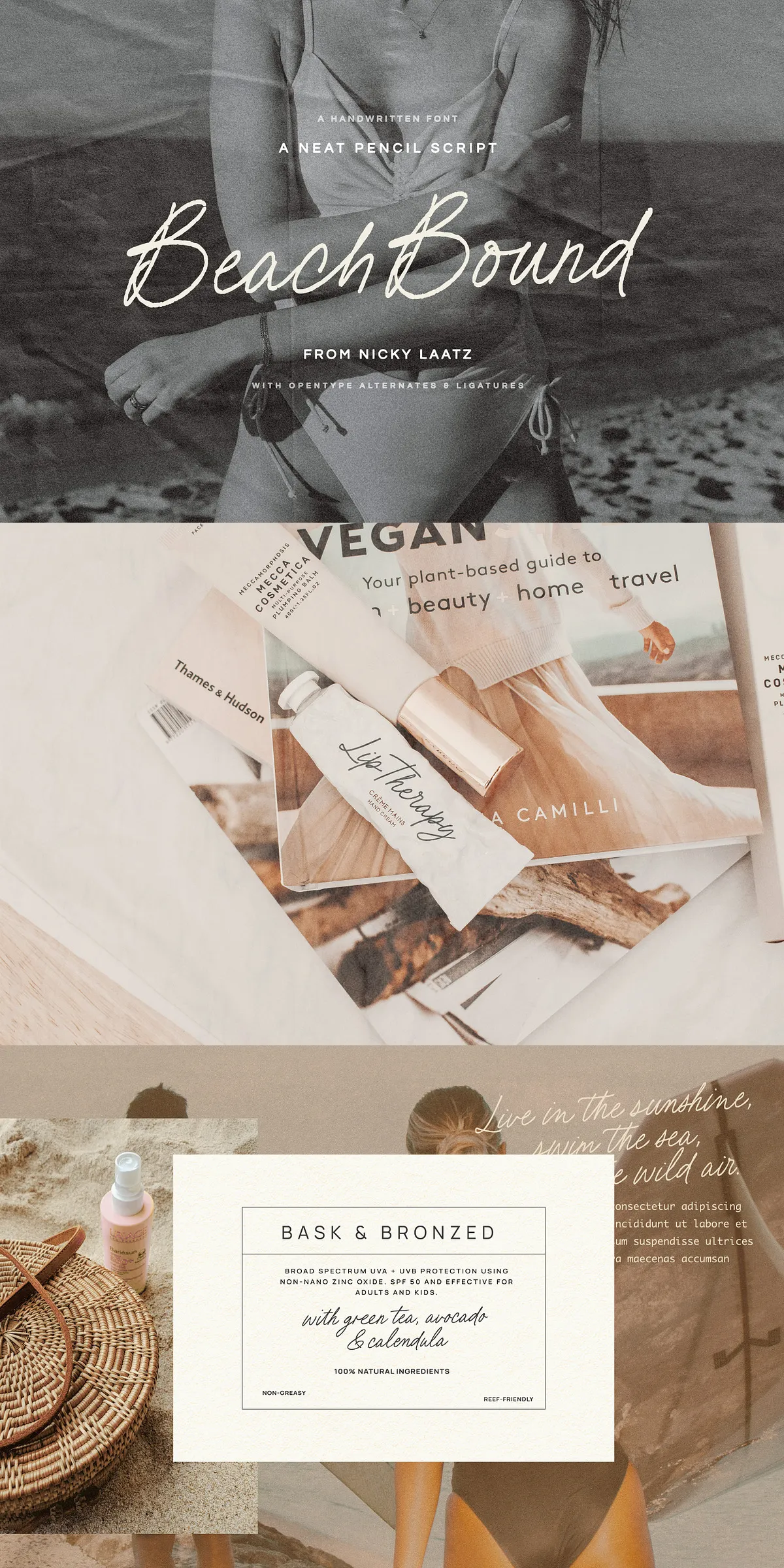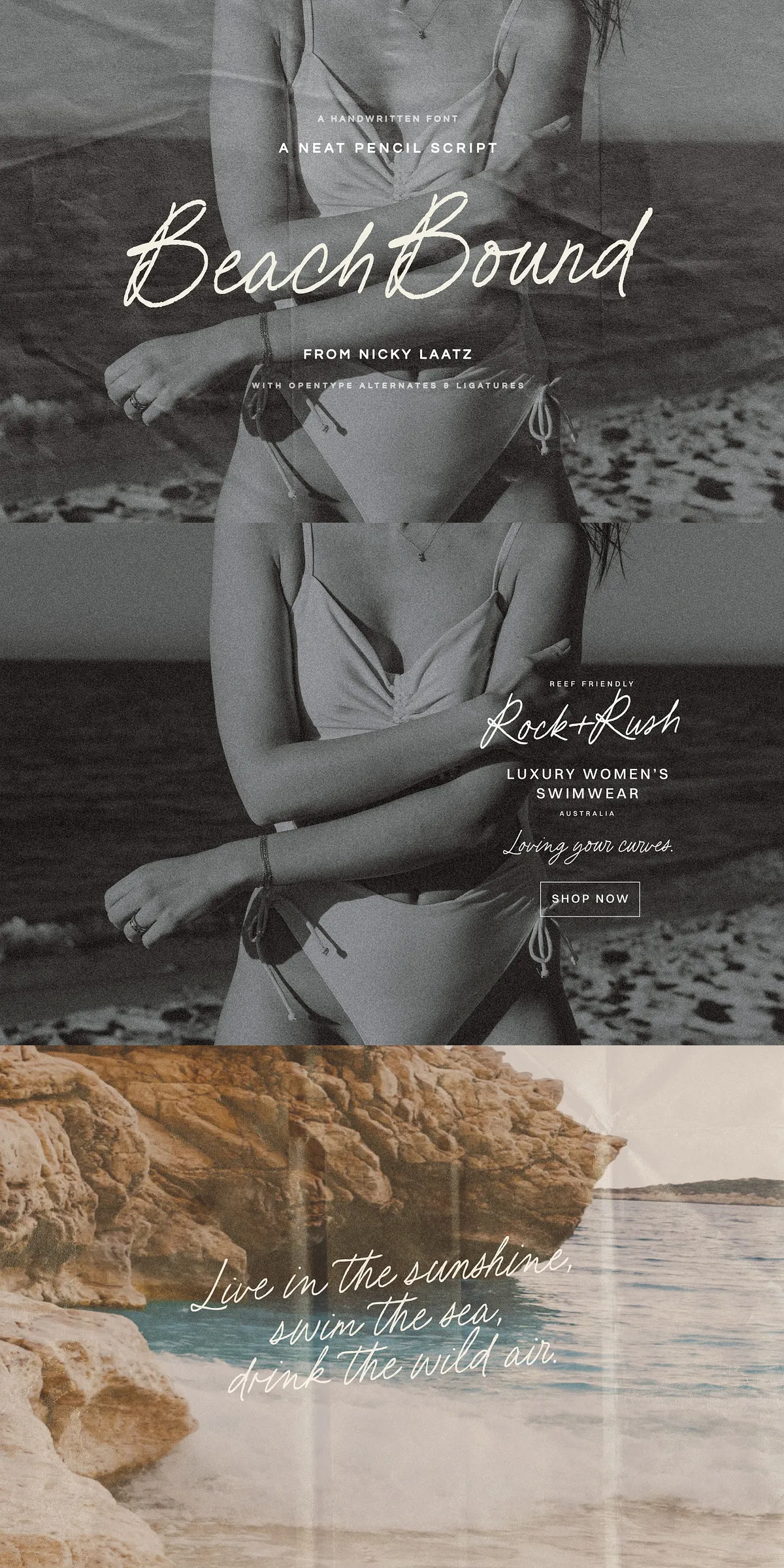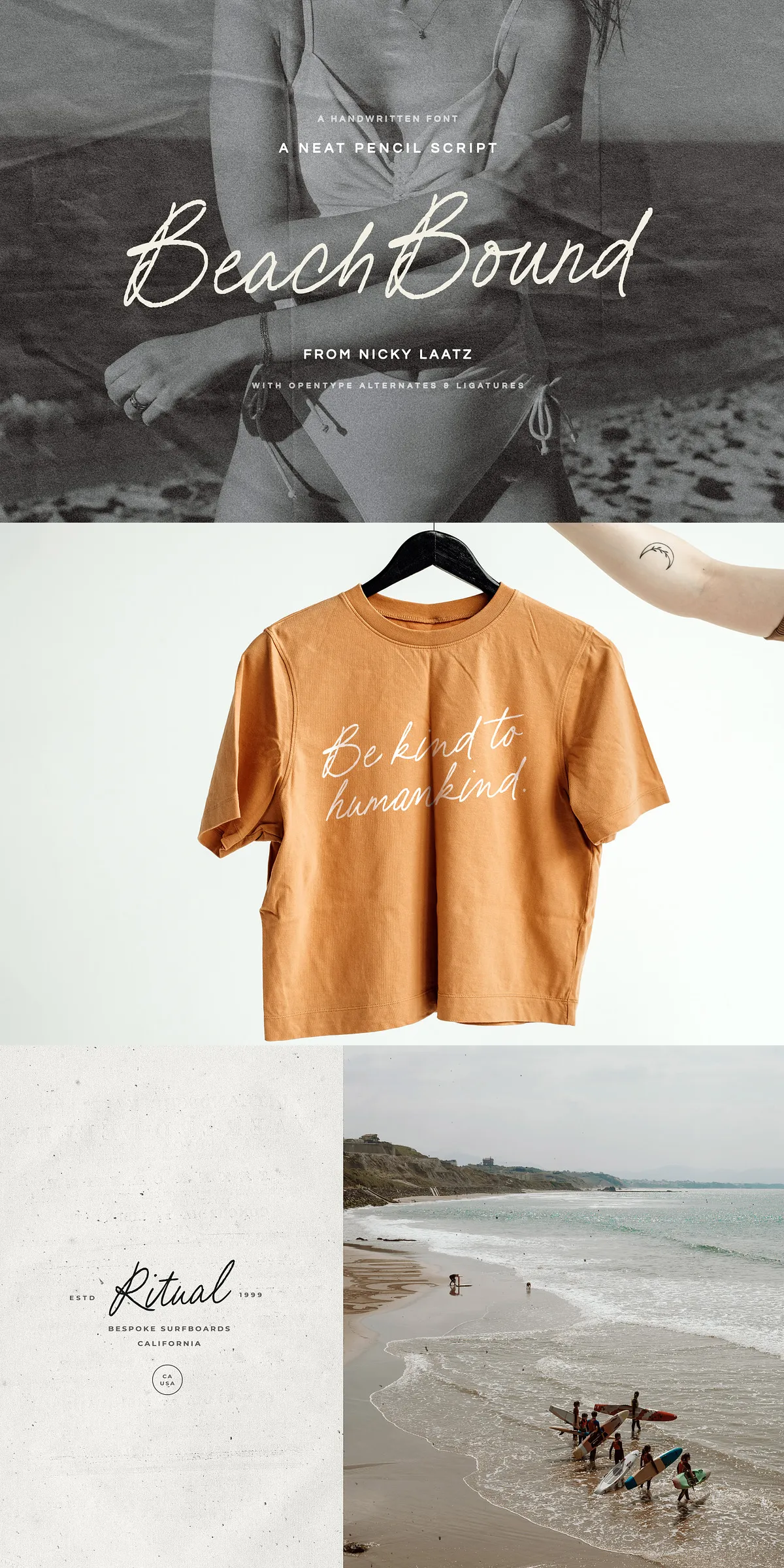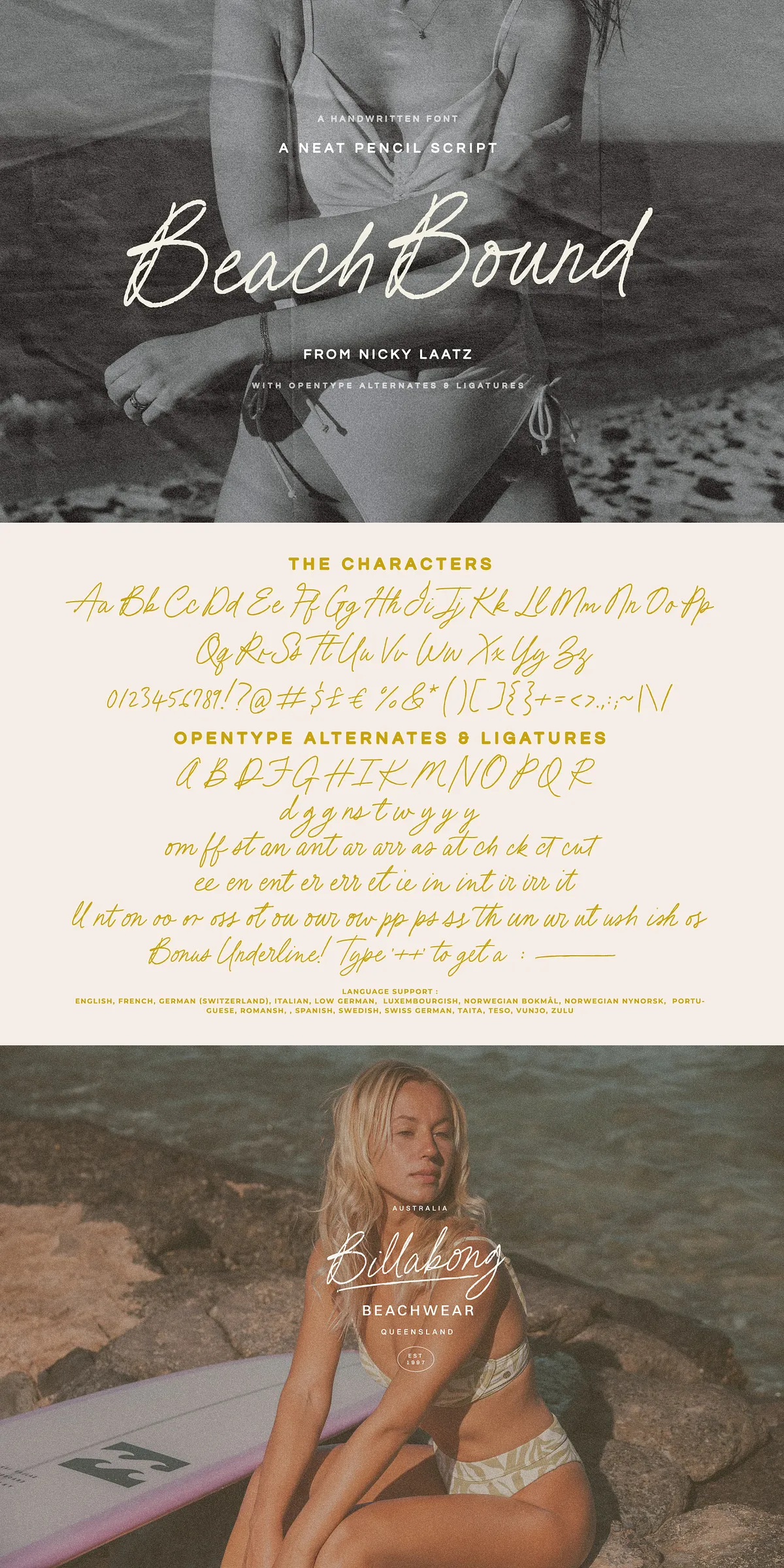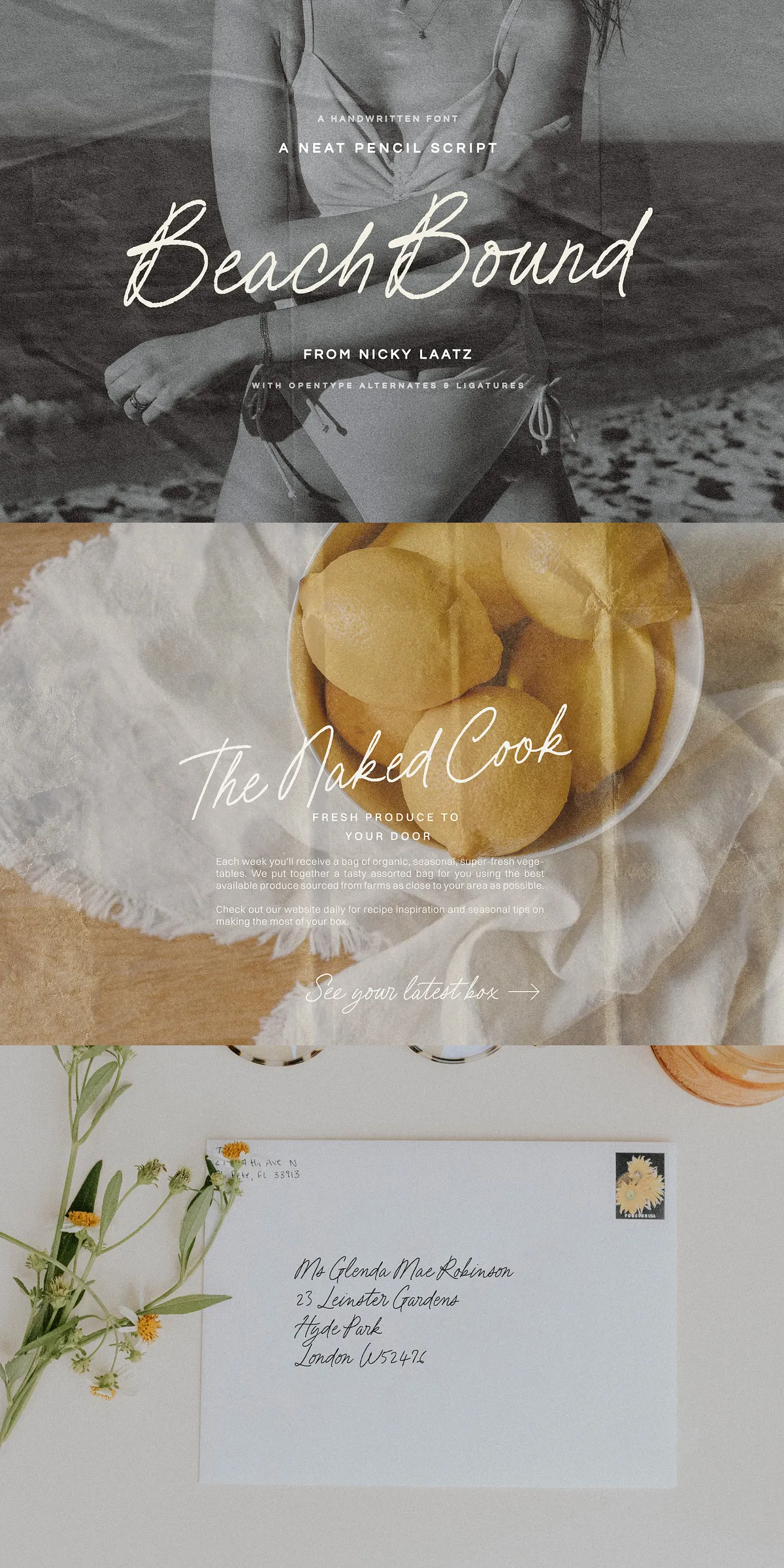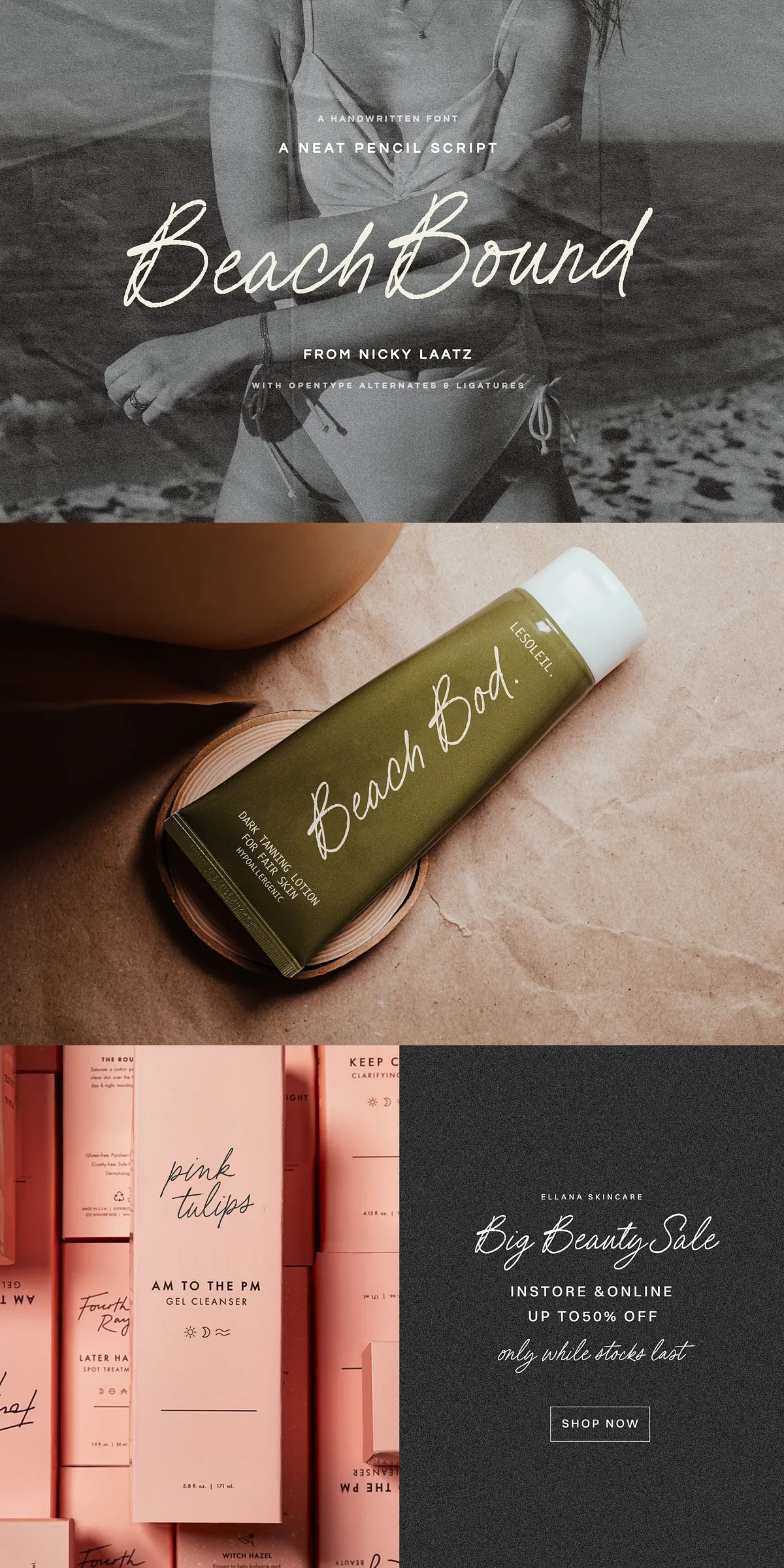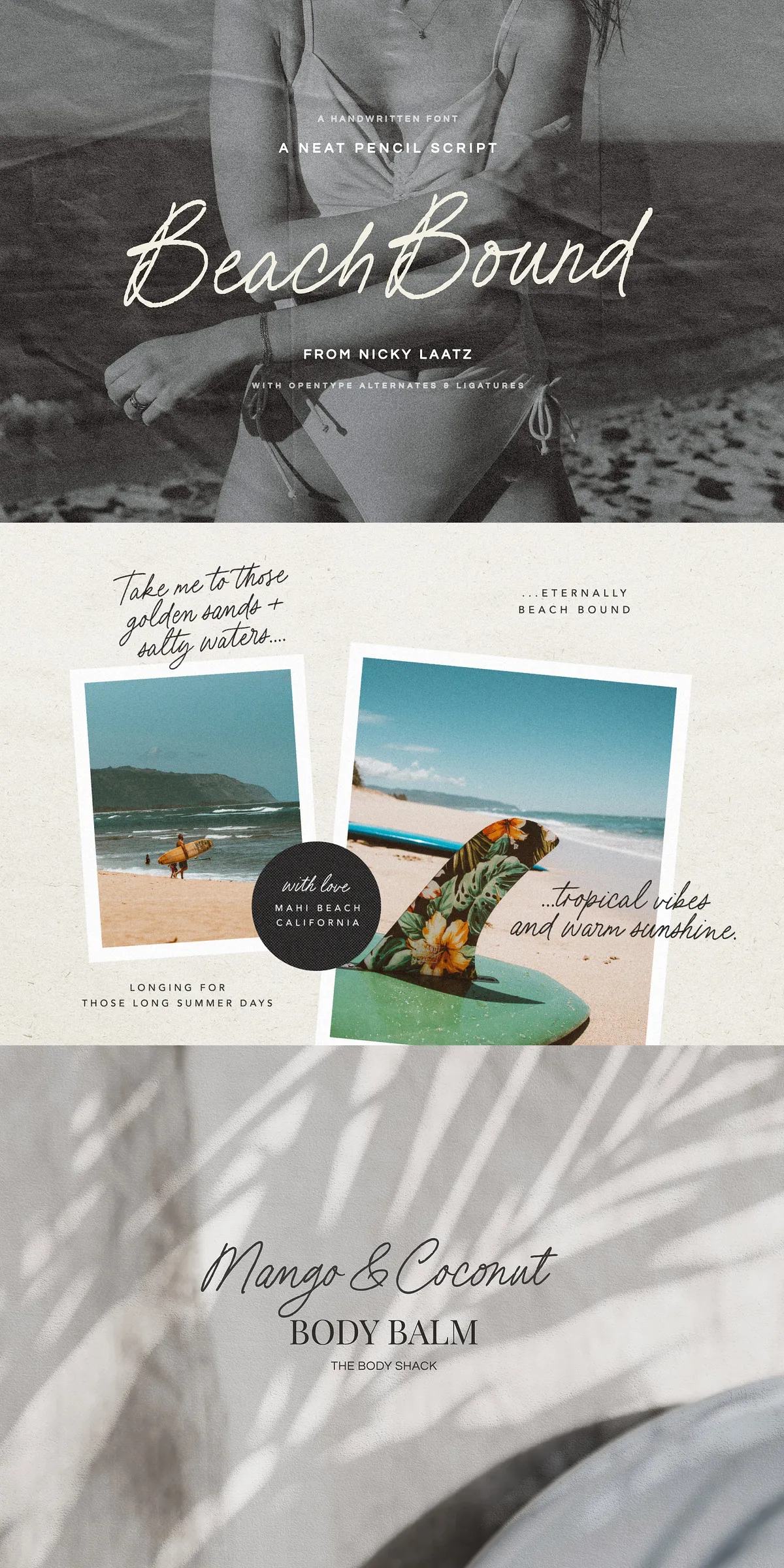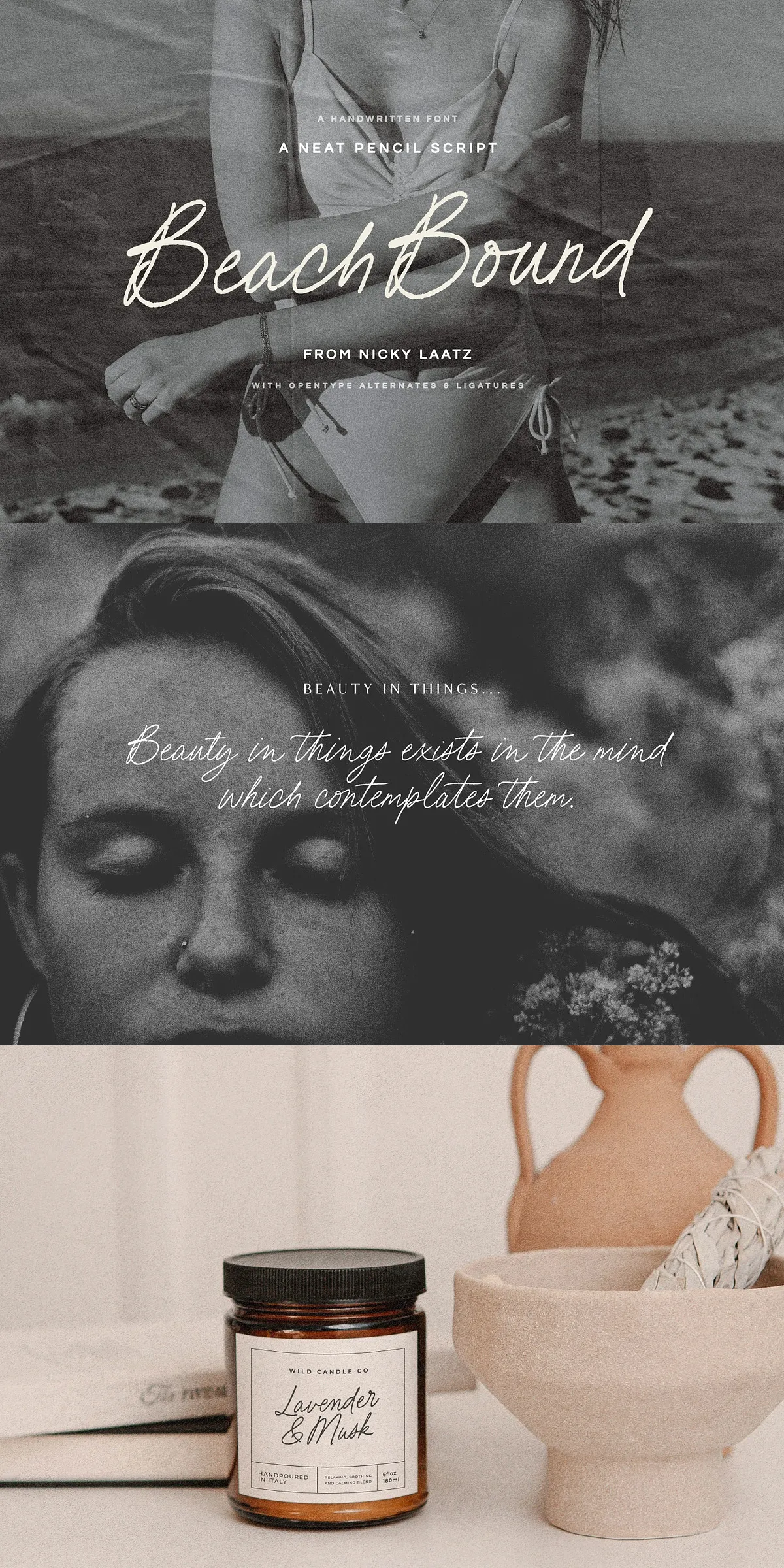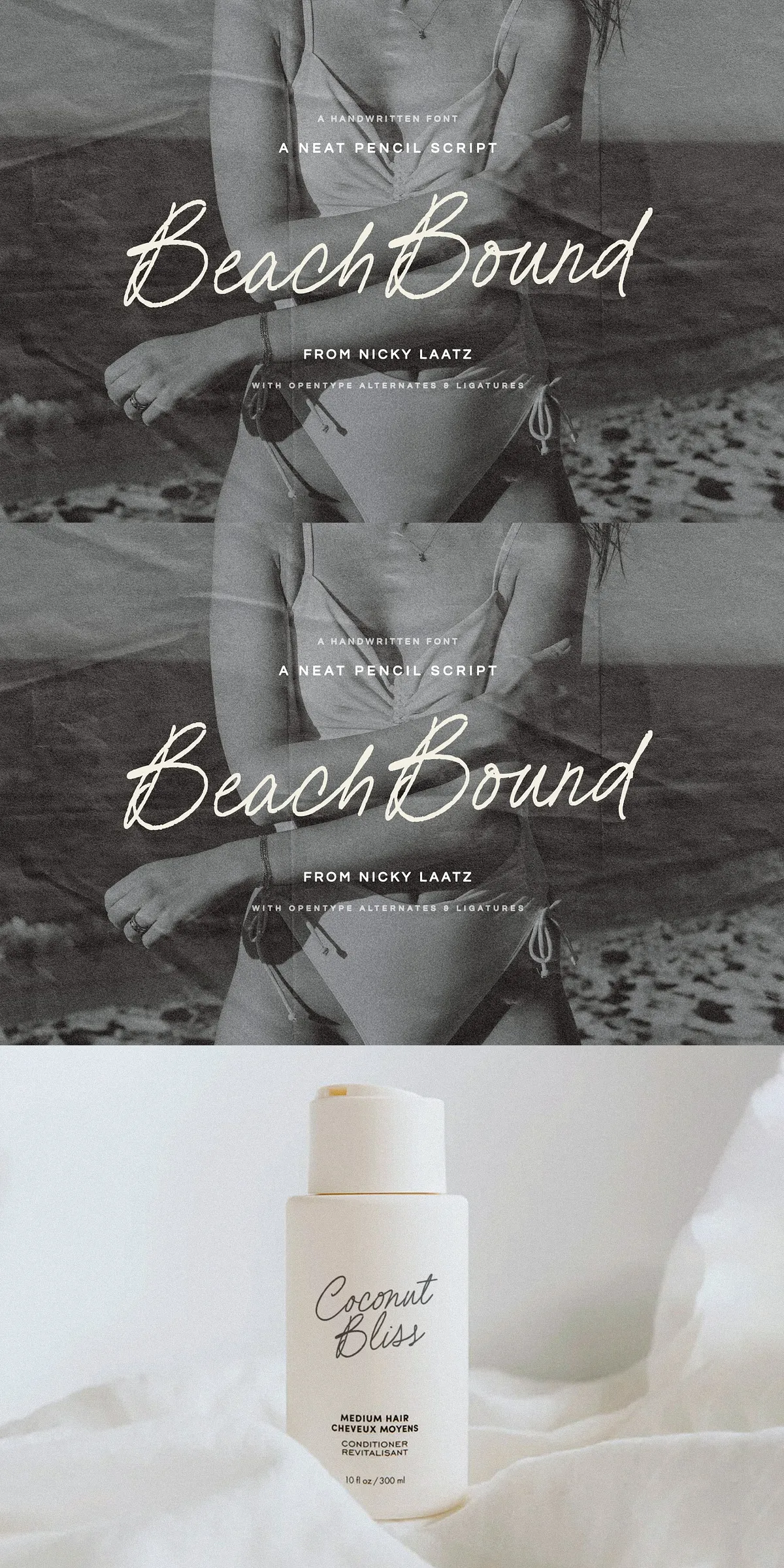
Unlock the effortless charm of real pencil handwriting with Beach Bound Script Font. More than just a typeface, this script brings a personal, authentic touch to every project, instantly elevating your designs with warmth and sophistication. Whether you’re creating elegant invitations, bold branding materials, or vibrant social media content, Beach Bound Script delivers a natural, hand-crafted feel that stands out in a digital world. This isn’t just a font — it’s your creative voice, perfectly captured.
Authentic Hand-Lettered Aesthetic, Instantly Inspired
Beach Bound Script was meticulously crafted from actual pencil sketches, preserving the subtle imperfections and organic flow that make real handwriting so captivating. This authentic foundation gives the font its signature charm — it feels personal, intimate, and alive. The letters breathe with a natural rhythm, as if each stroke was made with care and intention. It’s the visual echo of a quiet moment beside the waves, a handwritten note on the back of a postcard. This font instantly conveys a sense of genuine craftsmanship, making your work feel personal and meaningful.
Dynamic OpenType Features: Bring Her to Life
Beach Bound Script goes beyond static letters — it’s a living script powered by advanced OpenType technology. Activate its built-in contextual alternates and ligatures to unlock a seamless, flowing connection between letters. These intelligent features automatically adjust letter shapes and create smooth transitions, transforming rigid text into a continuous, expressive line that mimics the natural flow of hand-drawn script. No more awkward joins or stiff spacing — every word becomes a unified, graceful movement. This is what you’ve been missing to make your typography feel truly alive.
Unmatched Versatility for Every Creative Vision
Beach Bound Script is designed to adapt effortlessly to your unique style. She can be dainty and refined, perfect for high-end branding or bridal stationery. She can be chic and modern, ideal for lifestyle content or editorial design. She can be sexy and confident, a bold choice for fashion or music branding. She can even be cute and playful, bringing warmth to children’s books or artisanal packaging. With two distinct weights — Regular and Bold — you have full control over the tone of your message. This versatility makes her an indispensable asset in your design toolkit, ready for any project with the right touch.
Powerful Language Support for Global Creativity
Beach Bound Script is built for a global audience, supporting a wide range of languages. Use it for projects in Danish, English, French, German (Switzerland), Italian, Low German, Luo, Luxembourgish, Luyia, Norwegian Bokmål, Norwegian Nynorsk, Portuguese, Spanish, Swedish, and Swiss German. With a complete character set including punctuation, numerals, special symbols, and diacritical marks, this font handles multilingual content with ease. Whether you’re designing for a local boutique or a global campaign, Beach Bound Script ensures your message is clear, stylish, and inclusive. Created with the modern creator in mind, this font blends timeless charm with digital practicality, making it truly ready for every challenge.